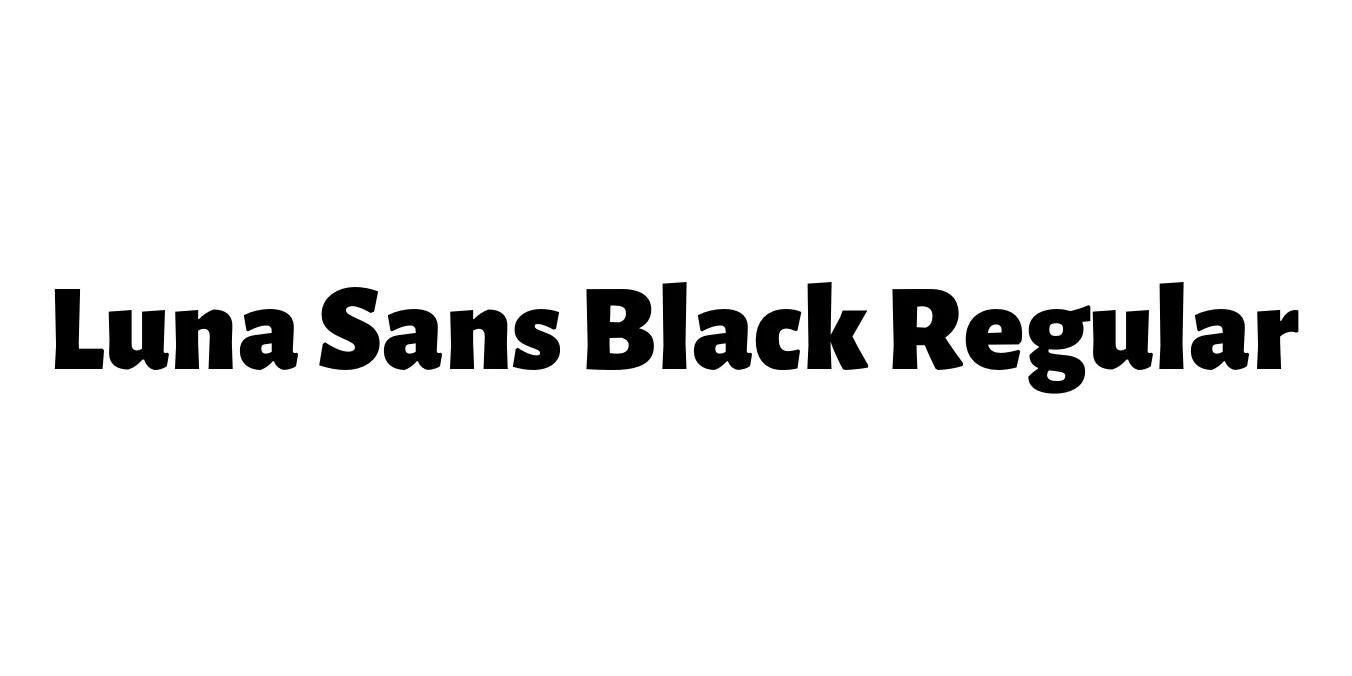
Luna Sans Black Regular
Designed by Luna Type
Luna Sans Black Regular is a powerful and commanding member of the Luna Sans family, designed to provide maximum visual impact through its heavy stroke weights and balanced geometric proportions. It bridges the gap between modern minimalism and high-visibility display typography, making it an essential tool for designers looking to create bold statements in both print and digital media environments.
The typeface features clean, open counters and a high x-height, which ensures that even in its heaviest weight, legibility remains sharp and clear across various screen resolutions. Over the years, it has become a popular choice for digital interfaces, corporate branding projects, and editorial layouts that require a sense of strength, stability, and professional clarity.
Luna Sans Black Regular Best Uses
Perfect for grabbing attention in large-scale print and web headers.
Ideal for creating strong, minimalist, and authoritative brand identities.
Highly effective for bold promotional materials and high-contrast marketing assets.
Great for high-contrast UI elements and prominent call-to-action buttons.